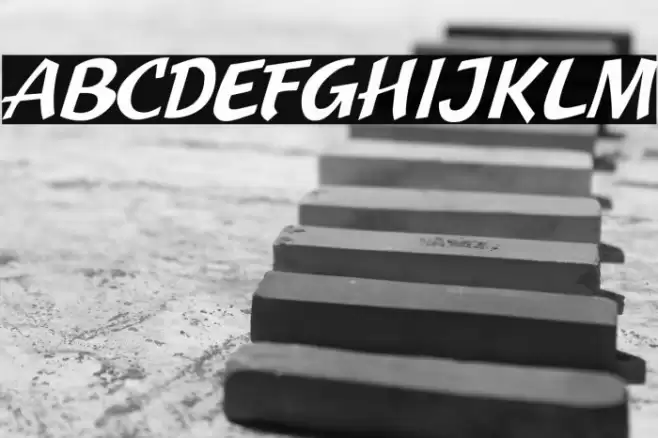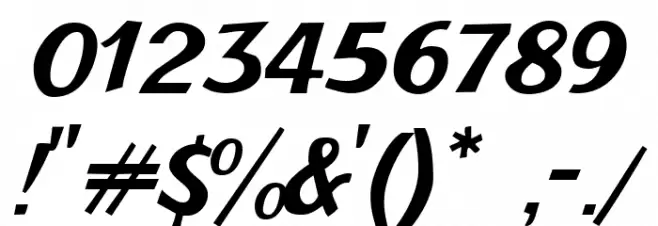
JMHPulpPaperback-Regular Font
JMHPulpPaperback-Regular Description
This font features a bold and dynamic style with a slight slant, giving it an energetic and forward-moving appearance. The characters are well-defined with sharp edges and a consistent stroke width, contributing to its strong visual impact. The uppercase letters are particularly striking, with a sense of motion and flair. The lowercase letters maintain the same boldness, ensuring readability and uniformity across text. Numbers and special characters are crafted with the same attention to detail, making them stand out while remaining cohesive with the overall design. This font is ideal for projects that require a bold statement and a touch of personality.
A bold, dynamic font with a slight slant and strong visual impact from Comic fonts.
- Proposed Projects: Suitable for book covers, posters, branding, and advertising materials.